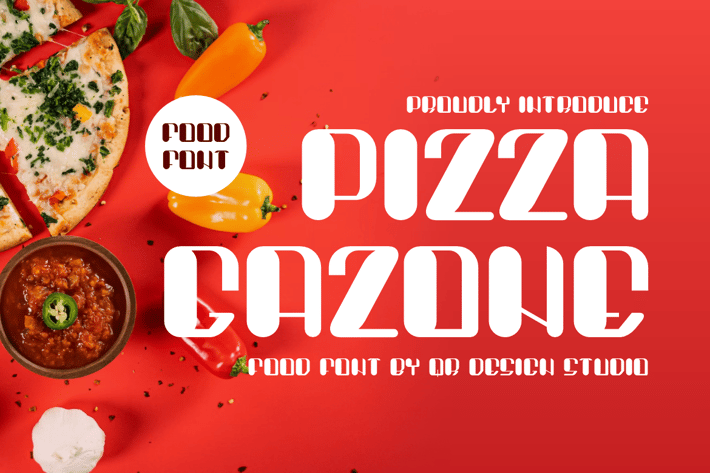
Pizza Gazone - Food Font
Pizza Gazone - Food Font is a bold and authentic display font.
The font is suitable for any branding project like food, kids, poster, logo, sport, and many more.